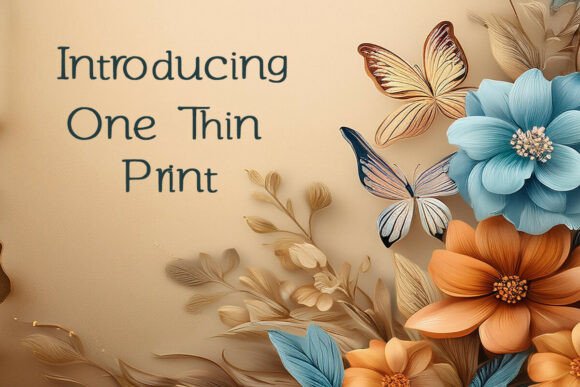
Introduction to One Thin Print Font
Remember the rush of excitement when you stumble upon the perfect font for your creative project? For designers, finding that one elusive font that elevates their work to the next level can be a game-changer. It’s like discovering a hidden treasure that adds a touch of sophistication and style to your designs. This is exactly what happens when you encounter the One Thin Print Font – a high-quality, modern font that’s perfect for adding an extra layer of elegance to your work.
With its sleek lines and crisp edges, One Thin Print Font is ideal for designers who want to make a statement with their designs. Whether you’re working on a magazine layout, a social media post, or a sticker design, this font is sure to impress. And the best part? It’s available as a free download, making it a valuable resource for any designer looking to add some extra flair to their creative projects.
From SVG files to Cricut projects, One Thin Print Font is a versatile design resource that can be used across various mediums. Its transparent background makes it easy to work with, and its modern design ensures that it stays on-trend without overwhelming the eye. Whether you’re a seasoned designer or just starting out, One Thin Print Font is definitely worth checking out – and it’s free to download, making it an absolute must-have for any creative project.
Key Features of One Thin Print Font
- High-quality design resource ideal for creative projects, including logos, branding, and packaging designs.
- Includes a single font style with a unique, modern aesthetic perfect for minimalist and clean designs.
- Perfect for designers seeking a simple yet effective font solution for their creative projects.
Honest Review: One Thin Print Font
As a designer, I’m always on the lookout for high-quality design resources that can elevate my creative projects. The One Thin Print Font is one such resource that caught my attention.
What works well: ✨ The font’s modern design aesthetic and versatility make it a great addition to any design project. The font family includes multiple weights, allowing for flexibility in typography. The free download option is also a plus, making it accessible to designers on a budget.
- Multiple weights for flexibility
What doesn’t work well: ⚠️ While the font’s transparent background is a great feature, it can sometimes be overwhelming to work with, especially when paired with busy backgrounds. Additionally, the font family is not as extensive as some other popular fonts, which may limit its use in certain design projects.
Overall, I’m impressed with the One Thin Print Font’s potential. With a bit of experimentation and creativity, designers can unlock its full potential and create stunning designs. If you’re looking for a modern, high-quality font for your next creative project, the One Thin Print Font is definitely worth considering.
The One Thin Print Font is a high-quality design resource ideal for creative projects. It offers a unique aesthetic and can be used in various applications.
- Combine the font with other high-quality design elements for a cohesive look.
The One Thin Print Font is commonly used in:
- Graphic design projects.
- Digital marketing materials.
- Print materials, such as business cards and brochures.